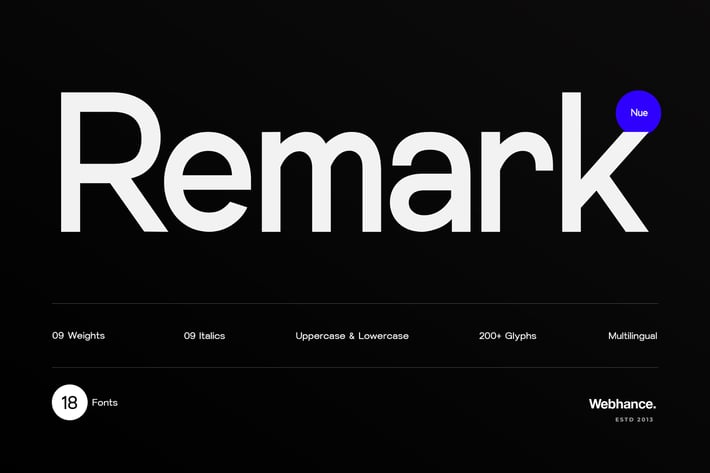
Remark Nue - Sans-serif Font Family
Remark Nue - A Versatile Sans-Serif Font Family
Introducing Remark Nue, a versatile sans-serif font family meticulously designed to elevate your design projects with its modern and refined aesthetic. With 9 thoughtfully crafted weights—ranging from the subtle Thin to the robust Heavy—alongside their matching italics, Remark Nue provides a comprehensive set of 18 fonts to cater to all your design needs.
This font is ideal for branding, logo creation, web design, poster design, social media visuals, text for reels, video infographics, YouTube thumbnails, and more. Each weight is carefully optimized for both print and digital media, ensuring smooth integration across various platforms. Enhance your designs with Remark Nue's clean lines, superior legibility, and contemporary elegance.
Western European (Austria, Belgium, Denmark, Finland, France, Germany, Iceland, Ireland, Italy, Luxembourg, Netherlands, Norway, Portugal, Spain, Sweden, Switzerland, United Kingdom)
South Eastern (Albania, Bosnia and Herzegovina, Bulgaria, Croatia, Cyprus, Greece, Kosovo, Montenegro, North Macedonia, Romania, Serbia, Slovenia, Turkey)
South American (Argentina, Bolivia, Brazil, Chile, Colombia, Ecuador, Guyana, Paraguay, Peru, Suriname, Uruguay, Venezuela)
Oceanian (Australia, Fiji, Kiribati, Marshall Islands, Micronesia, Nauru, New Zealand, Palau, Papua New Guinea, Samoa, Solomon Islands, Tonga, Tuvalu, Vanuatu)
Esperanto Language support
09 Weights
09 Italics
18 Fonts Included
350+ Glyphs